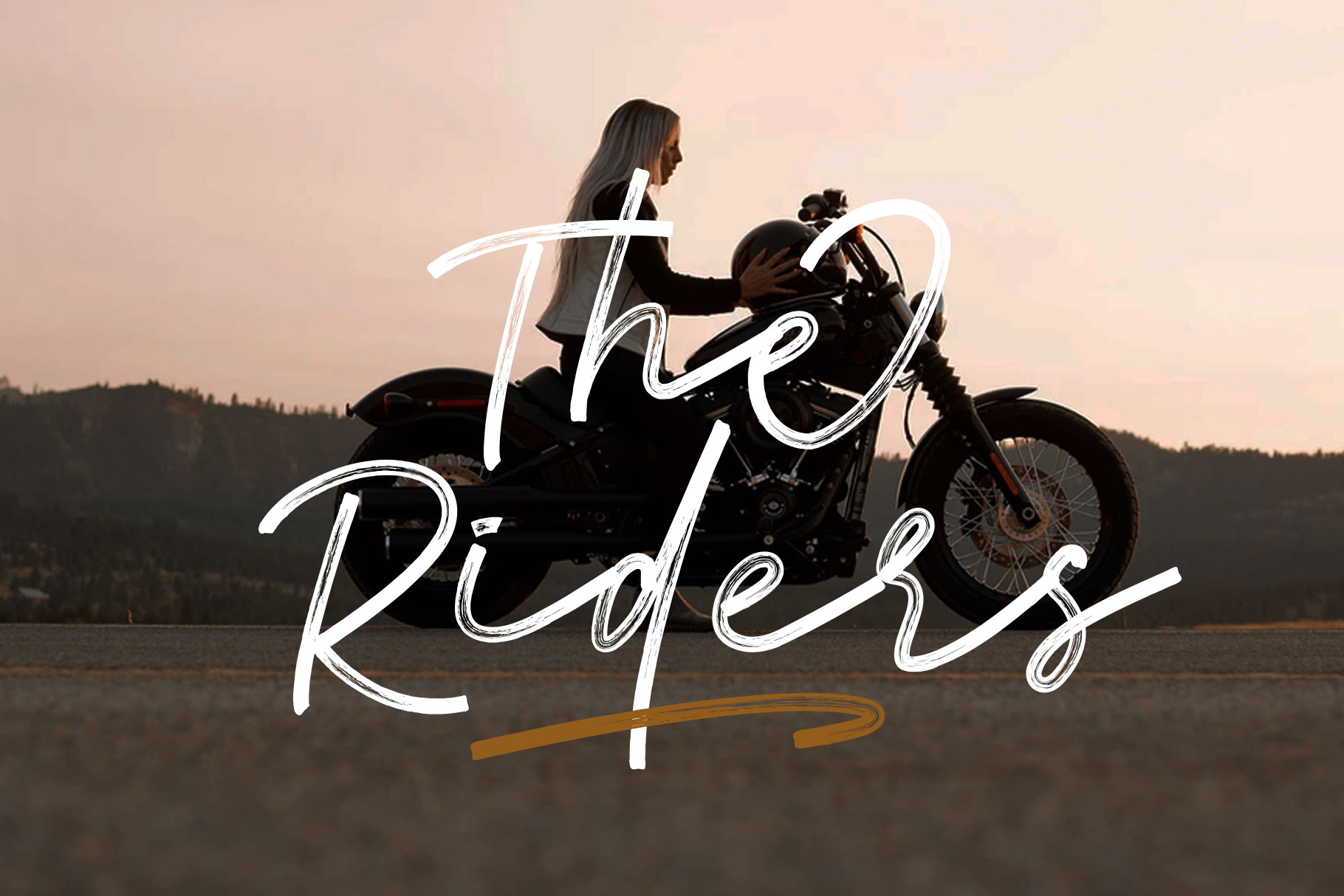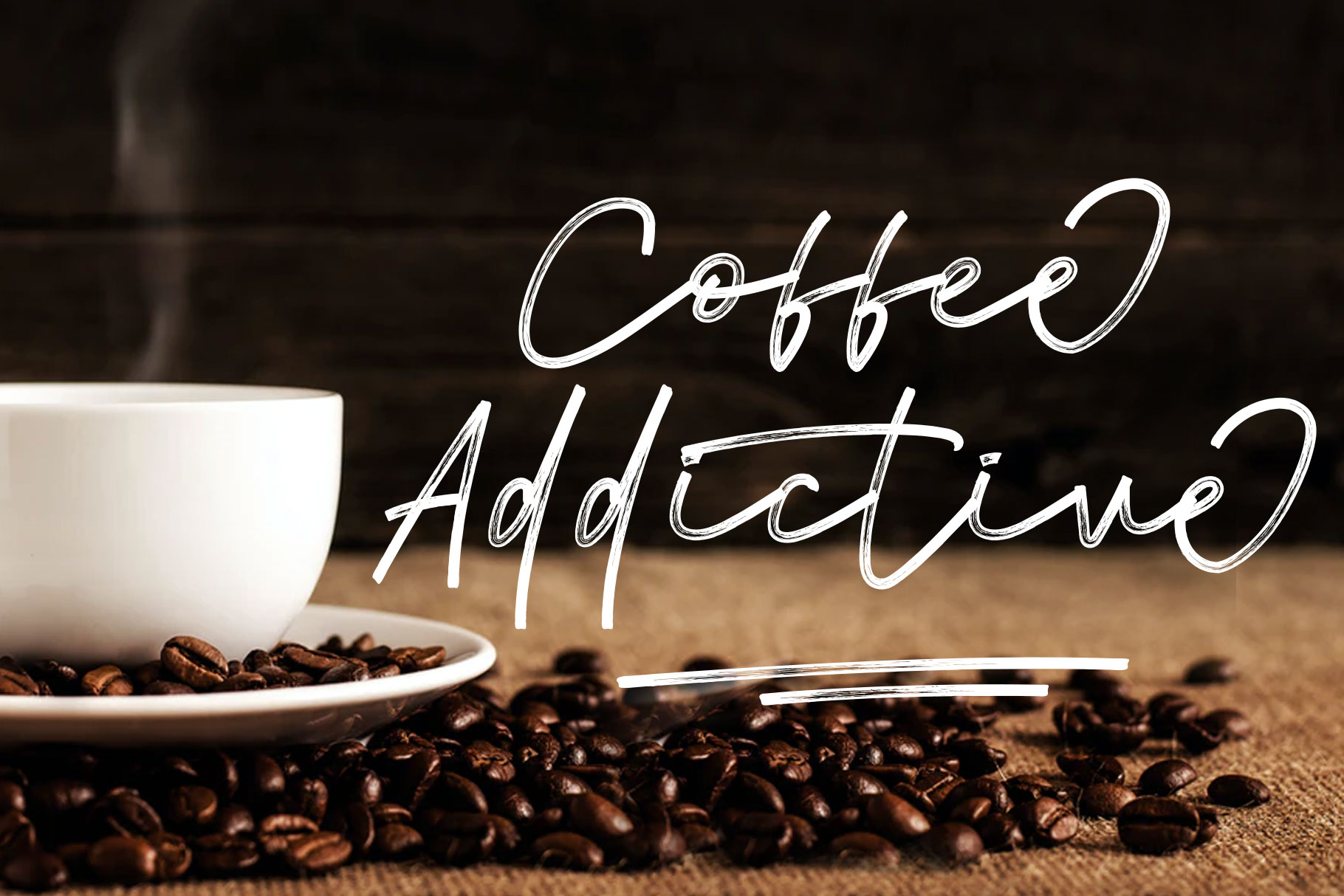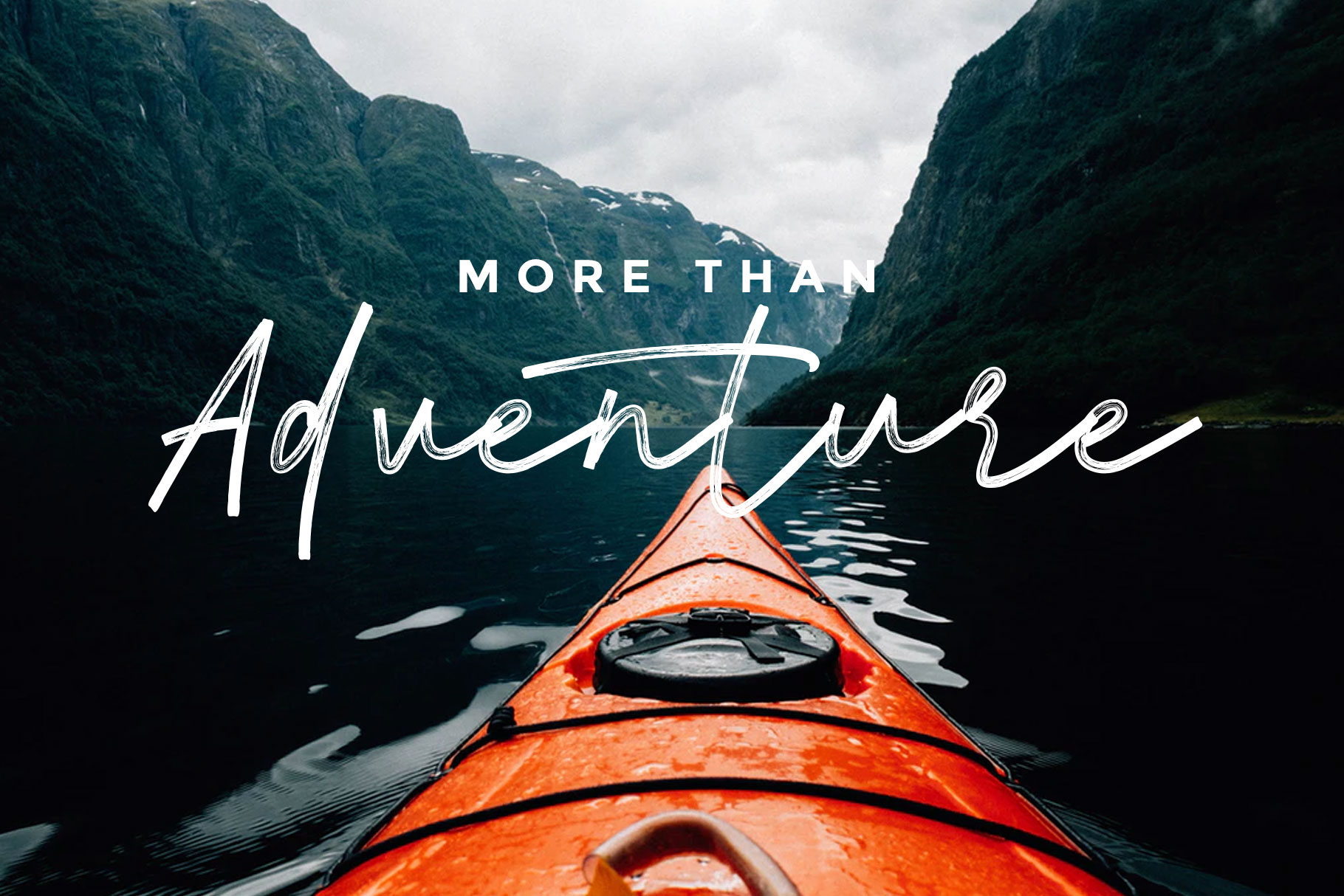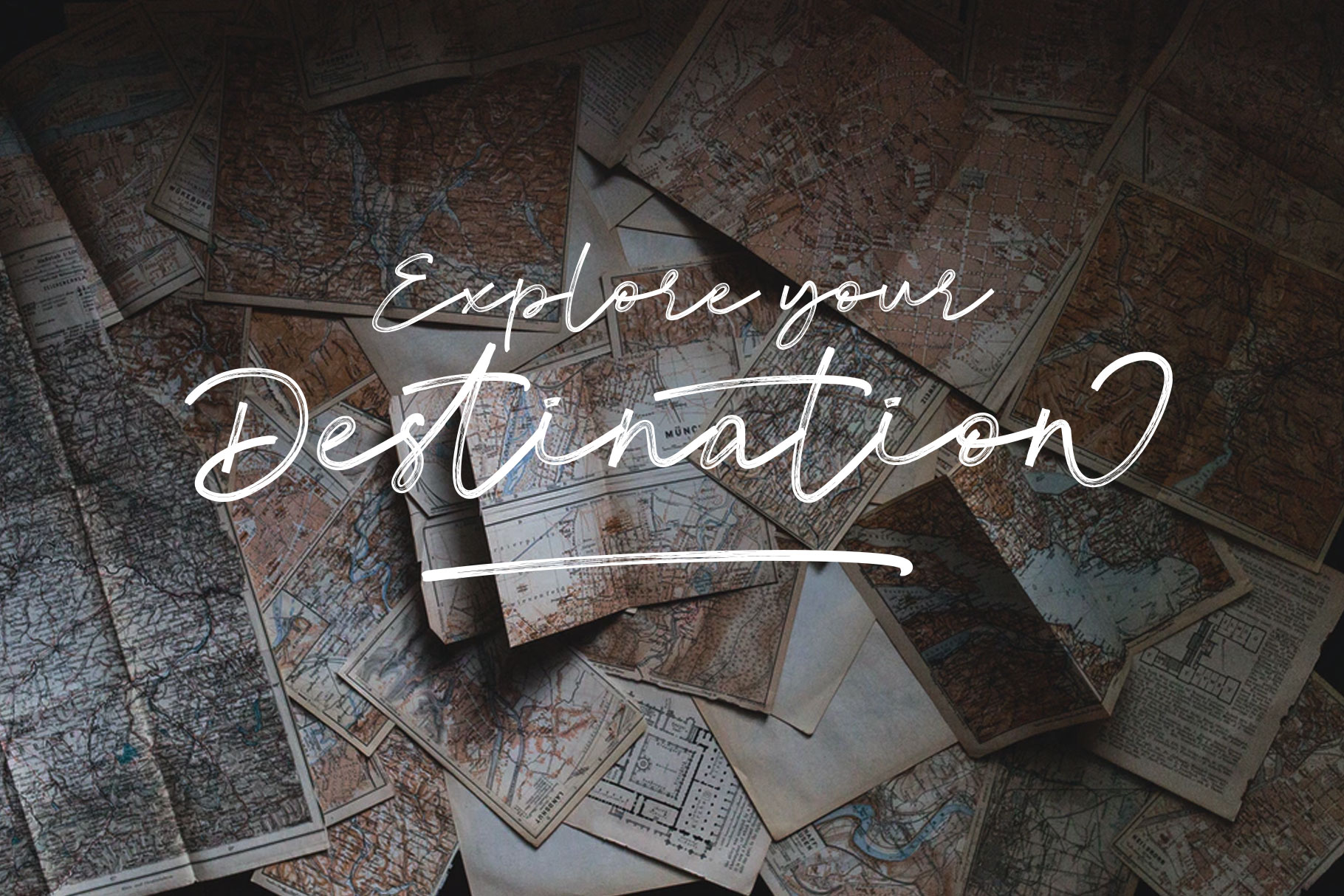
Atalla Brush Font
Atalla is taken from Greek which means young, which can be interpreted professional. we keep this font looks classy, readable, stylish, catchy and easy to use. Atalla is the great choice for watermark on photography, signature or signature logo design, quotes, album cover, business card and many other design project. Atalla is here to make your work to high level!!!
• Basic Latin A-Z and a-z
• Swashes